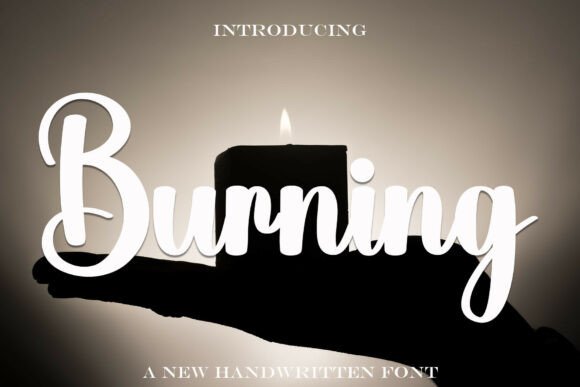
The Burning Font: A Sweet and Elegant Addition to Your Design Arsenal
First Impressions: A Love Affair with Burning Font
The moment I laid eyes on Burning Font, I knew it was something special. Its gentle, cursive strokes exude a sense of romance and whimsy, perfect for projects that require a touch of elegance and playfulness. Whether you’re designing a logo, crafting a wedding invitation, or creating a lookbook, this font is sure to impress.
What I Love About Burning Font ✨
- ✅ Elegant yet casual: Burning Font strikes the perfect balance between sophistication and approachability, making it suitable for a wide range of design projects.
- ✅ Versatile: From branding and logos to wedding materials and greeting cards, this font adapts seamlessly to various design needs.
- ✅ Romantic and joyful: The cursive strokes and gentle curves of Burning Font infuse any design with a sense of warmth and happiness.
While Burning Font is a stunning addition to any design project, there are a few minor considerations to keep in mind:
- 🤔 Legibility at small sizes: As with many script fonts, Burning Font may lose some legibility when scaled down to very small sizes. It’s best used at larger sizes where its beauty can shine.
- ⚠️ Overuse: While Burning Font is gorgeous, using it excessively or in large blocks of text may make your design look cluttered. Balance is key.
The Story Behind Burning Font
| Is Burning Font suitable for body text? | While Burning Font is stunning, it’s best used for headings and short paragraphs. For body text, a more readable font is recommended. |
In conclusion, Burning Font is a versatile and beautiful addition to any designer’s toolkit. Its elegant yet casual appearance makes it perfect for a wide range of projects, from branding and logos to wedding invitations and greeting cards. With its joyful and romantic touch, Burning Font is sure to elevate your designs and leave a lasting impression.